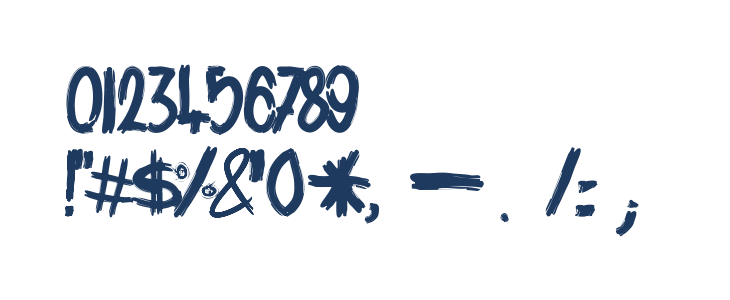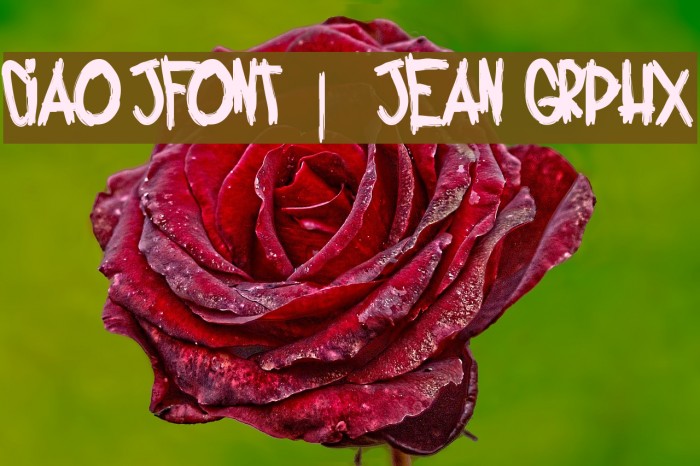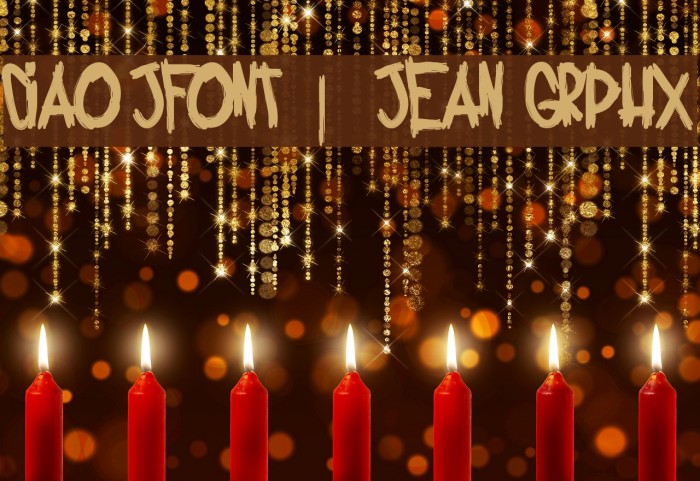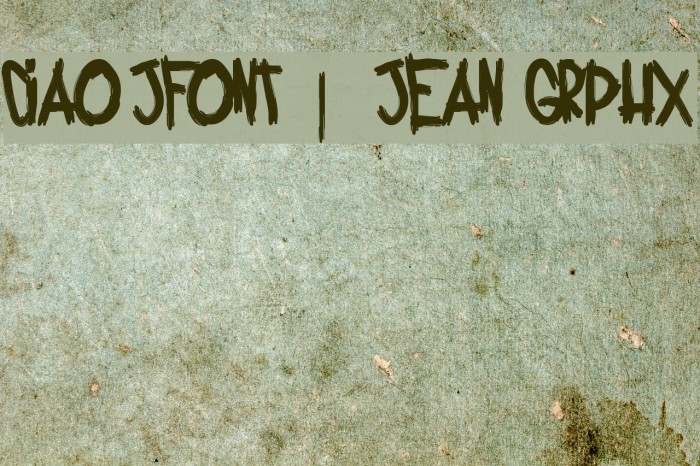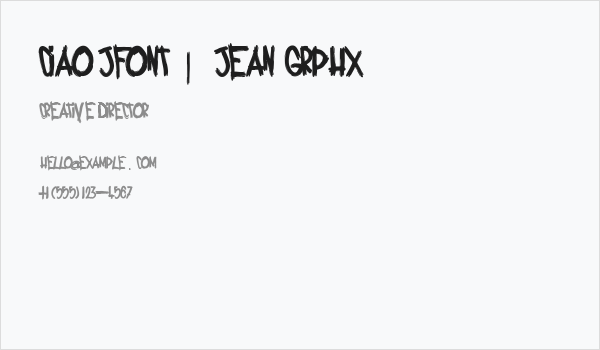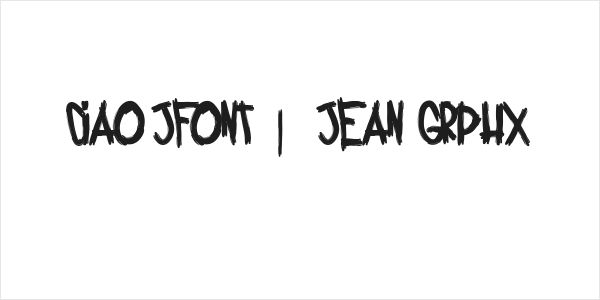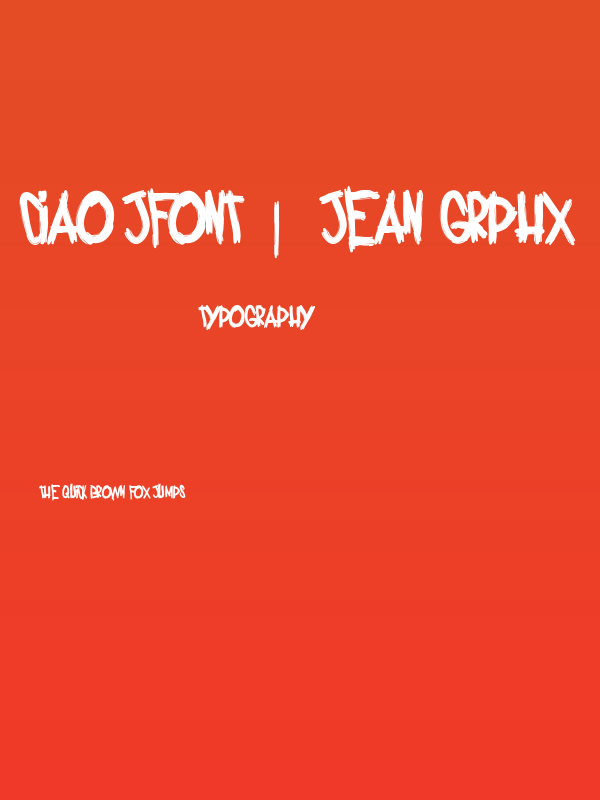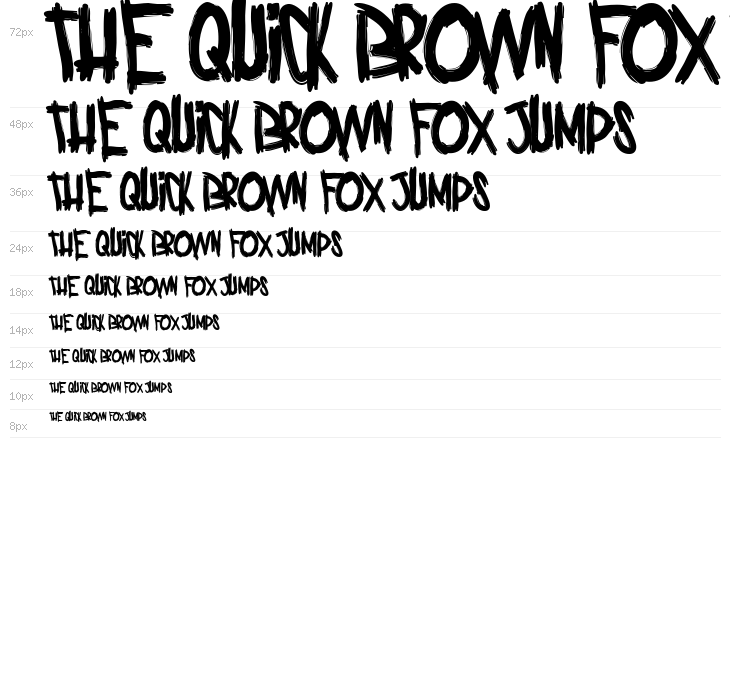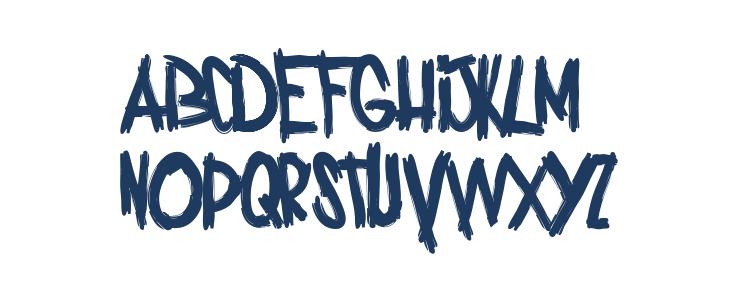
Ciao jFont | Jean Grphx Font
Ciao jFont | Jean Grphx Description
This font features a bold, expressive style with a hand-drawn, graffiti-like appearance. The letters are characterized by thick, uneven strokes that give a sense of dynamic energy and movement. The uppercase and lowercase letters maintain a consistent style, with exaggerated curves and angles that create a sense of urgency and spontaneity. The numbers and special characters follow the same aesthetic, ensuring a cohesive look across all text elements. This font is ideal for projects that require a bold, eye-catching design with a touch of urban flair.
| Overall Style | Urban, Expressive, Dynamic |
| Use Case | Headlines, Posters, Branding |
| Proposed Projects | Ideal for street art designs, music album covers, posters, and urban-themed branding. |